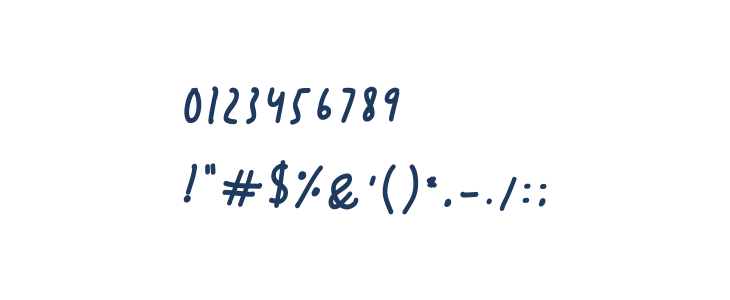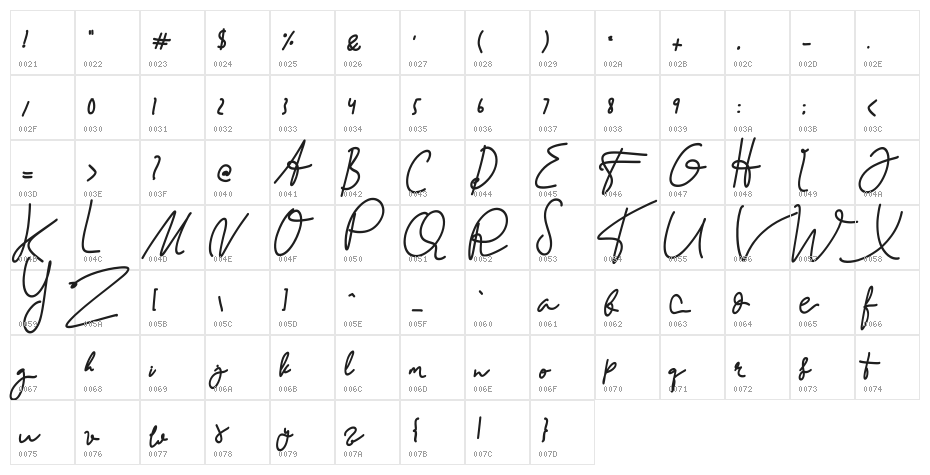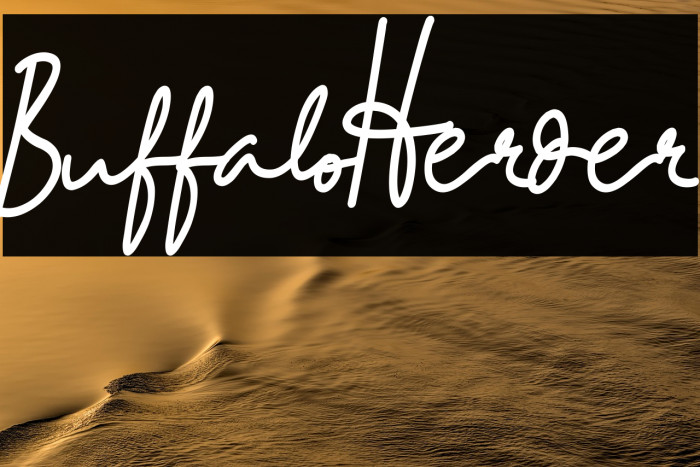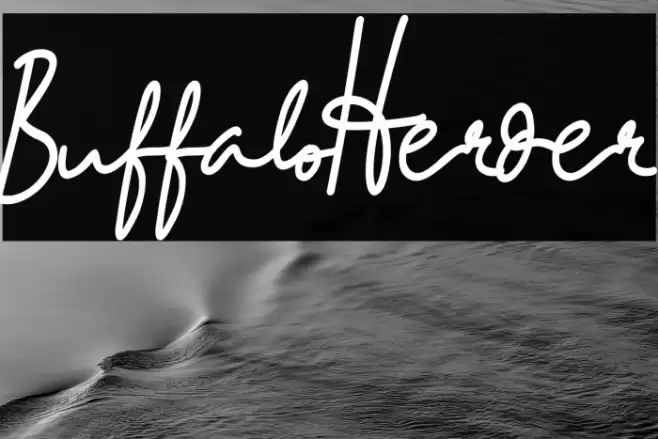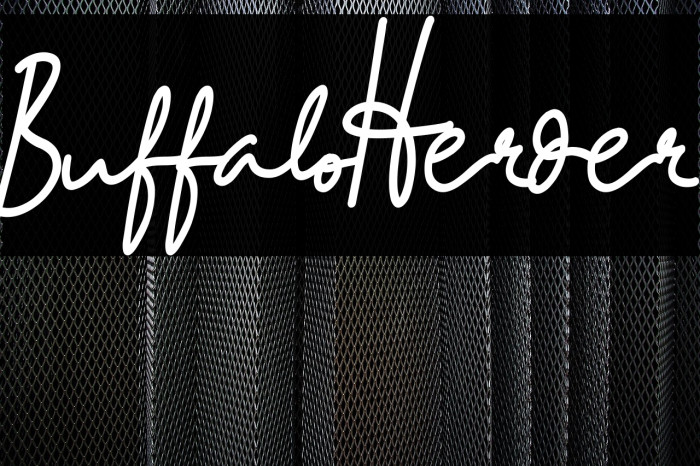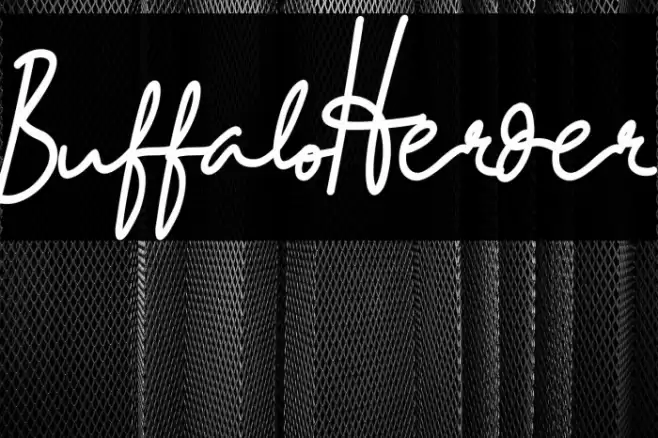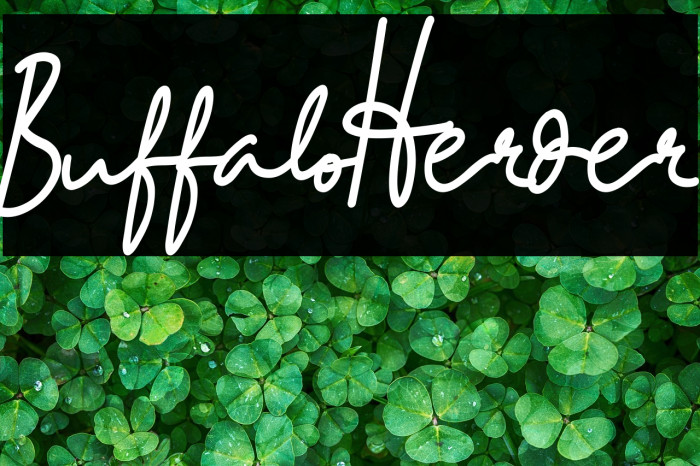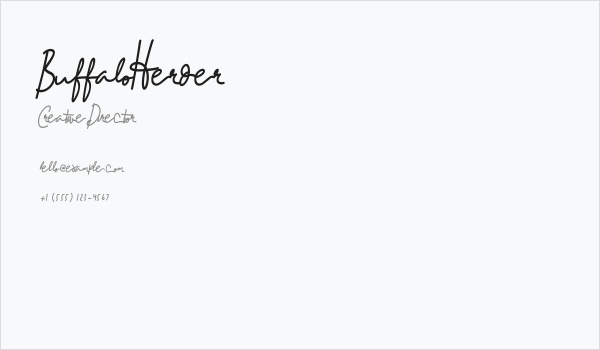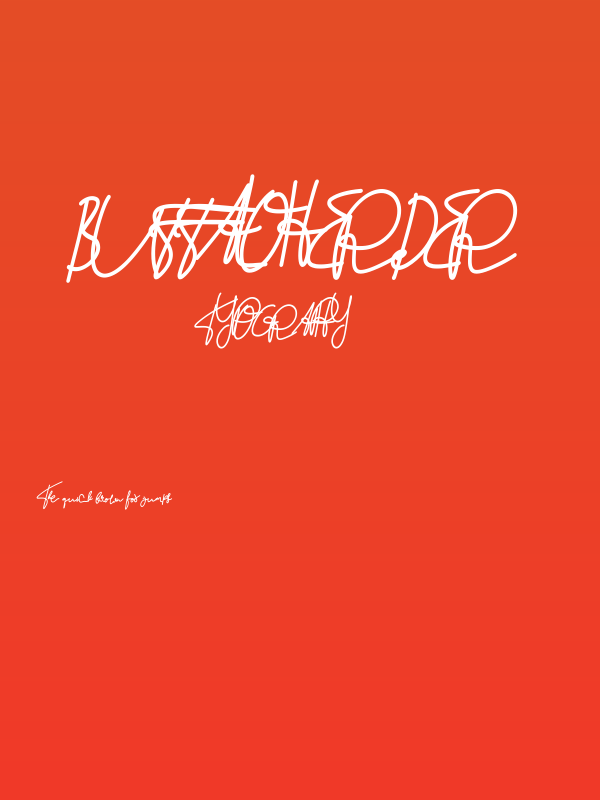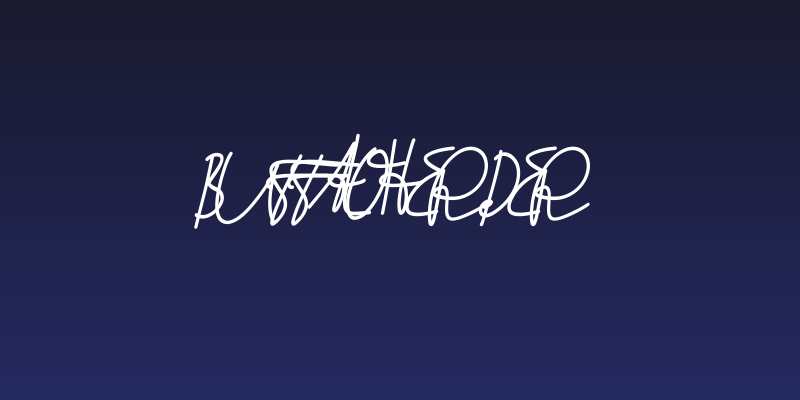
BuffaloHerder Font
BuffaloHerder Description
This font features a dynamic and expressive handwritten style, characterized by its fluid and interconnected strokes. The letters are crafted with a natural flow, giving an impression of personal touch and creativity. The uppercase and lowercase letters maintain a consistent style, with some letters extending slightly beyond the baseline, adding to its artistic appeal. The numerals and special characters are designed to complement the overall aesthetic, ensuring a cohesive look across all text. This font is perfect for projects that require a personal or artistic touch, such as invitations, greeting cards, or creative branding.